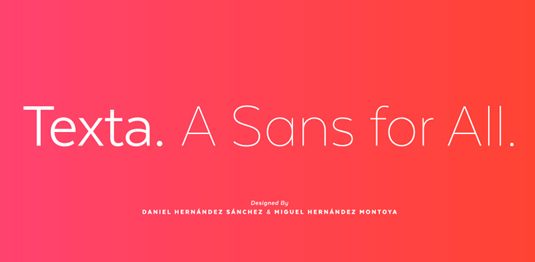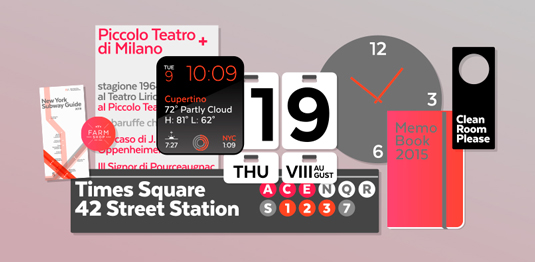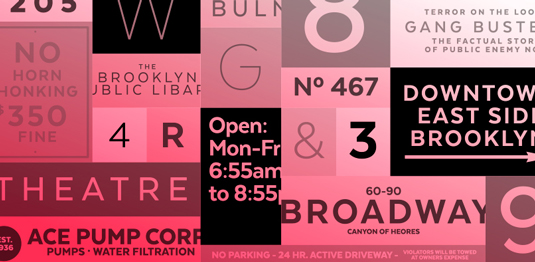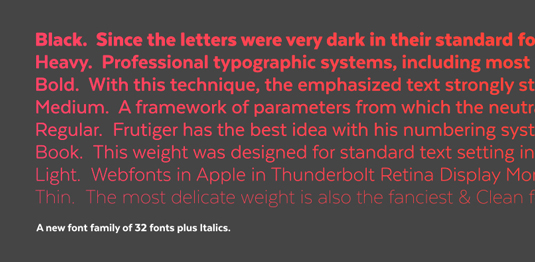
Font of the day: Texta
Texta from Latinotype
Described as 'a sans for all', today's typeface of choice, Texta, was created by the team at digital type foundry Latinotype. The Latinotype websites states, 'Through studying humanists' models from Edward Johnston to Adrian Frutiger and the Gothic Alphabet made by sign painters comes Texta, a contemporary, rational, transparent and useful Sans to compose all kind of texts'.